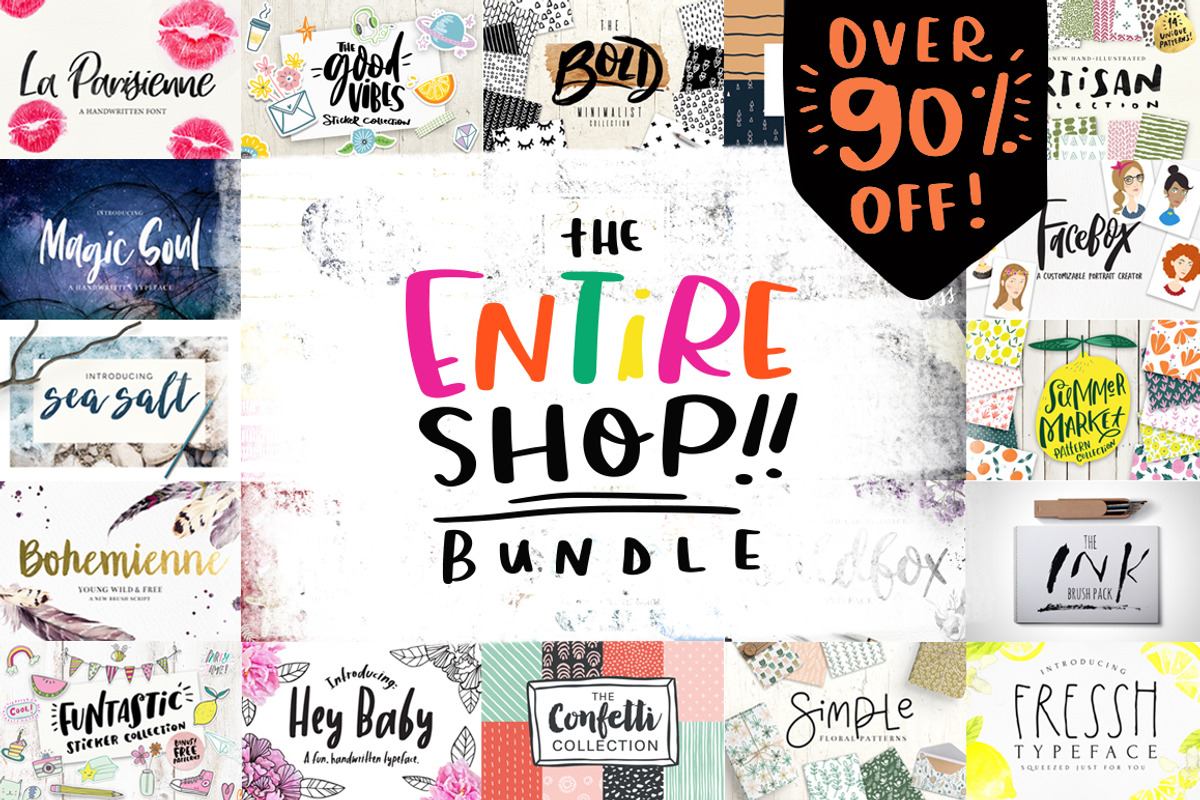
ENTIRE SHOP BUNDLE Font Free Download is a comprehensive collection of high-quality fonts designed to suit a wide range of design needs. With multiple styles, weights, and typefaces included, this bundle provides versatility for projects such as branding, logos, social media graphics, websites, and more. Whether you're working on creative, corporate, or casual designs, this bundle offers plenty of options to enhance your typography.
The ENTIRE SHOP BUNDLE Font Free Download includes fonts ranging from sleek sans-serifs to elegant scripts, making it easy to create harmonious designs with a professional touch. Whether you're building a brand identity or crafting an eye-catching poster, this bundle equips you with everything you need.